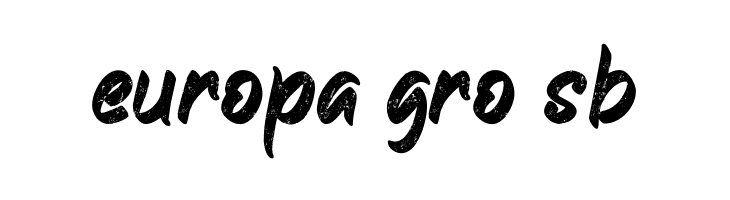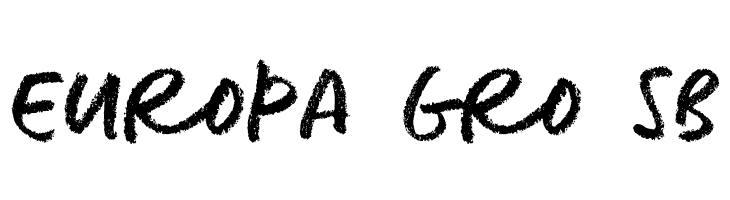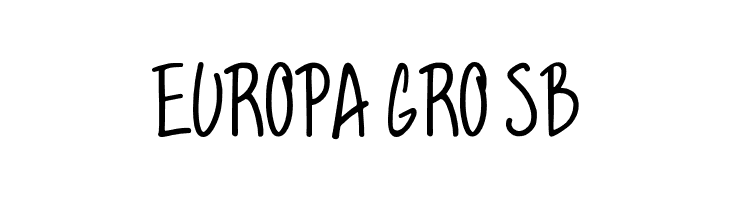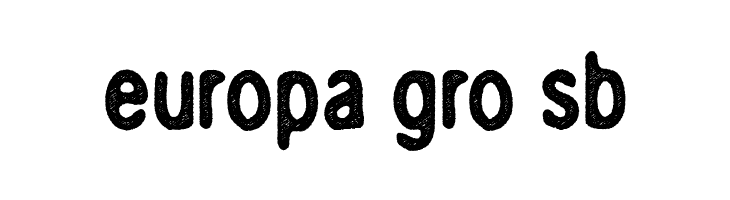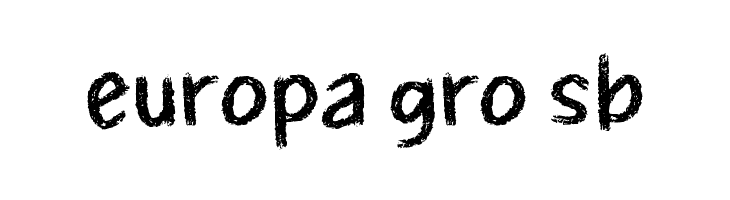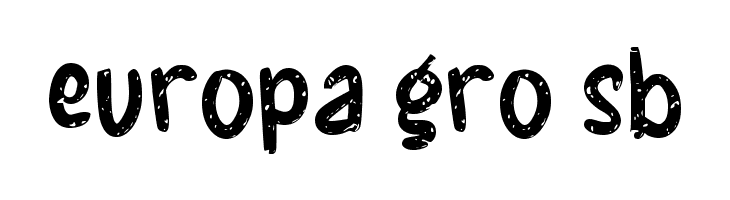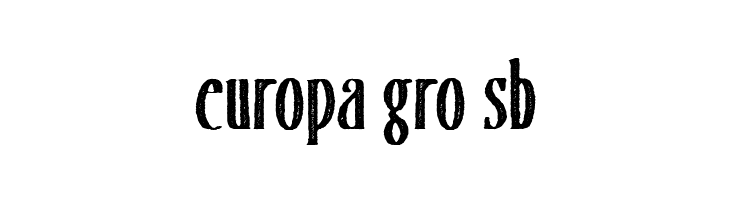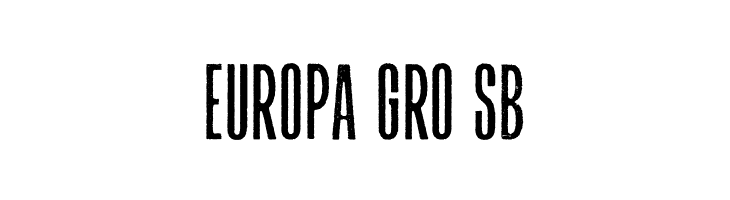
A playful, handwritten font with a chalk-like texture and irregular strokes.
A bold, textured font with a playful, chalk-like appearance.
A bold, textured font with a hand-drawn, chalk-like appearance.
A playful, casual handwritten font with smooth, flowing lines.
A playful, textured font with a hand-drawn, chalk-like appearance.
A bold, textured font with a hand-drawn, chalk-like appearance.
A playful, hand-drawn font with a textured, chalk-like appearance.
A rough, textured serif font with a vintage, handcrafted style.
A rugged, distressed font with a vintage, industrial feel and condensed width.
A bold, textured font with a vintage, industrial feel.